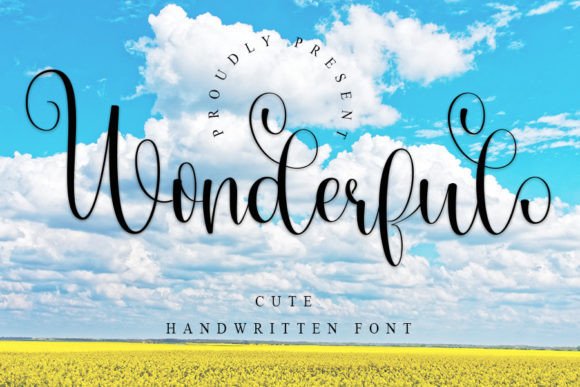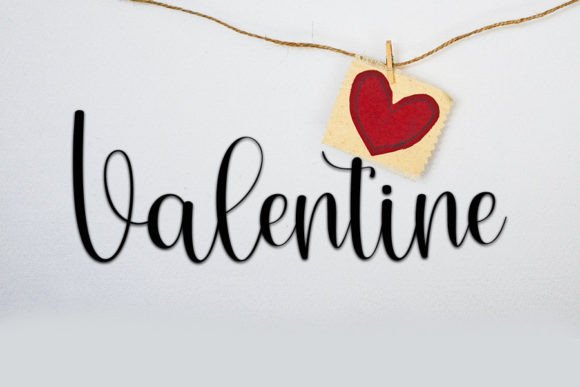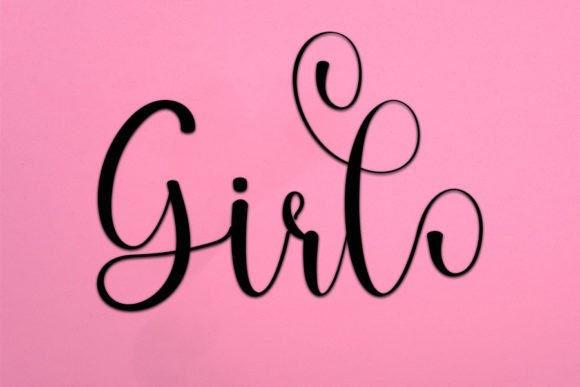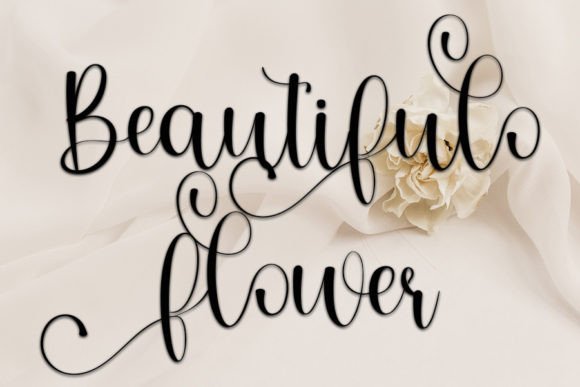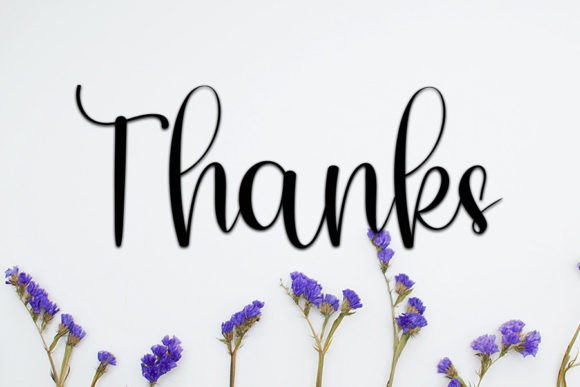
Wonderful Font
Elevate Your Designs with Wonderful Handwritten Font
The Wonderful Handwritten Font is a stylish and graceful script font designed to add a refined yet personal touch to your creative work. With its neat letterforms and elegant flow, this font combines the best of modern simplicity and timeless beauty.
Whether you’re designing for business or personal use, Wonderful offers a perfect balance of professionalism and warmth.
Perfect for Invitations, Branding, and Social Media
Wonderful is a versatile font that suits a variety of design purposes. Use it in wedding invitations, event announcements, and thank-you cards to create a soft, memorable impact. It’s also ideal for branding elements, including logos, product packaging, and business cards.
If you’re a digital creator, this font works great for Instagram posts, Pinterest graphics, email banners, and blog titles. Its clean structure ensures excellent legibility, even on smaller screens.
Elegant Lettering with a Personal Feel
What makes the Wonderful Handwritten Font stand out is its elegant yet natural appearance. The font features smooth curves and well-spaced letters that give it a handwritten look, while maintaining a polished and tidy feel. It looks both personal and professional, which is why it’s a favorite among modern designers.
Even when used in longer text blocks, the font remains easy to read—making it ideal for everything from titles to quotes and more.
Designed for Print and Digital Excellence
Whether you’re creating content for digital platforms or high-resolution prints, Wonderful delivers exceptional quality. It’s perfect for T-shirt designs, wall art, labels, and greeting cards, while also enhancing website headers, YouTube thumbnails, and presentation slides.
You can pair it with bold sans-serif fonts to create visual contrast or combine it with delicate serifs for a refined, cohesive look.
Why Designers Love Wonderful Handwritten Font
Here are just a few reasons this font is widely loved:
• Neat and stylish handwritten appearance
• Adds elegance to both casual and formal projects
• Readable at all sizes, from headlines to small text
• Ideal for use in both print and digital formats
Make Every Project Feel Special
In conclusion, the Wonderful Handwritten Font is a timeless script that adds grace and clarity to your creative projects. Whether you’re working on a brand identity, designing a heartfelt greeting, or preparing digital content, this font ensures your message is delivered beautifully.
If you’re seeking a font that is both classy and expressive, Wonderful is the perfect choice to bring your vision to life.